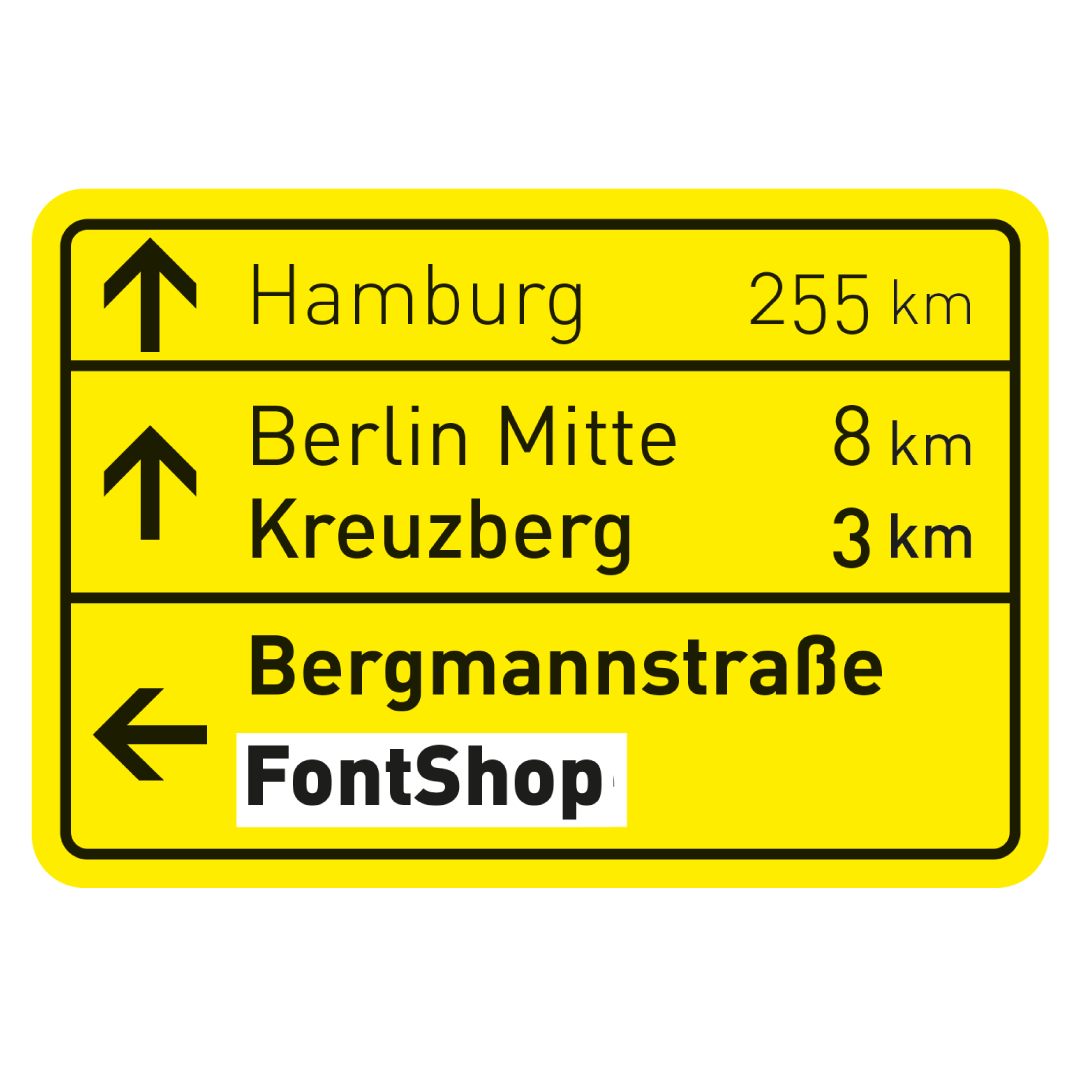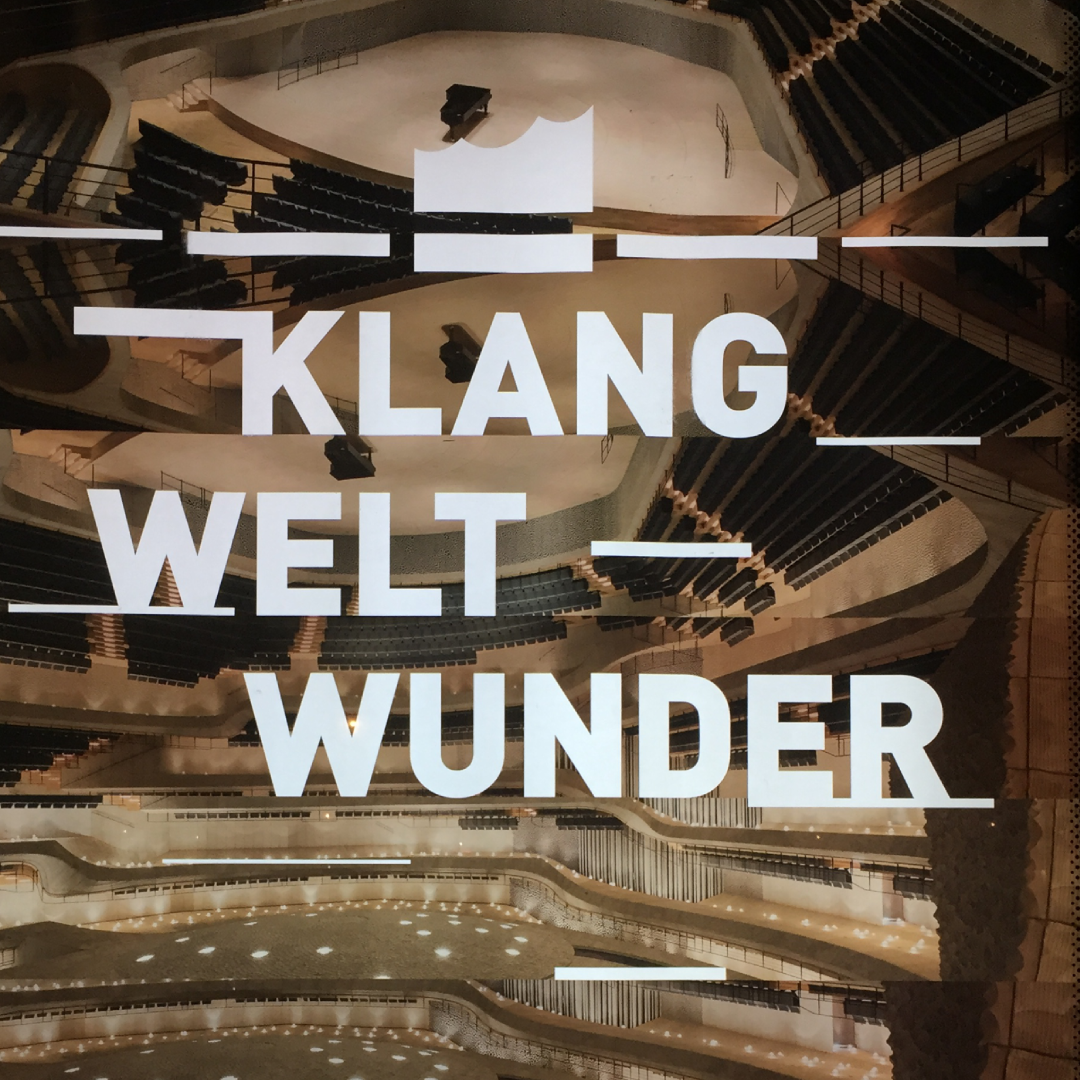
After studying at KABK in The Hague with Gerrit Noordzij, Albert left for Hamburg in 1987 to work in the type industry. In 1994 he started his studio Dutch Design which specializes in typography and corporate design. He designed typefaces ever since, the most famous being FF DIN which he did for FontShop (now Monotype) in 1995. It is the first, famous and most faithful revival of the lettering models from the German standard DIN 1451 for public signage. Over time, he extended FF DIN with many weights, styles, language support and script systems such as Cyrillic and Greek. Major steps in that process were the release of FF DIN Round in 2010 and FF DIN Arabic in 2016. With Achaz Reuss and Antonia Cornelius he extended the family with FF DIN Stencil and FF DIN Slab which were aso released as Variable Fonts in 2022 together with FF DIN Variable. Until recently, he taught typeface design at the Muthesius University of Fine Arts and Design in Kiel and currently advises on legibility in the context of inclusive design. His latest typeface family is Altona, it preserves the beautiful, idiosyncratic letters of 1920s street signs found in the Altona district of Hamburg. He designed it with Julia Uplegger and Antonia Cornelius who contributed with a range of icons relating to the history and spirit of Altona.